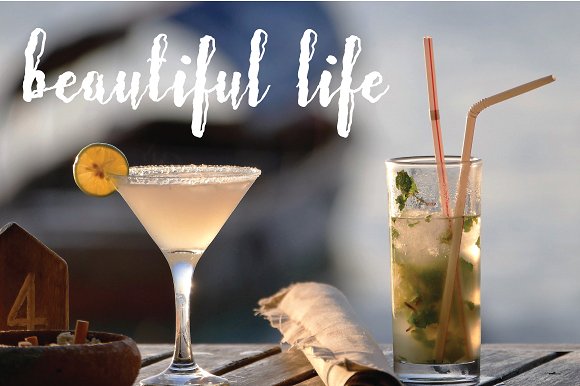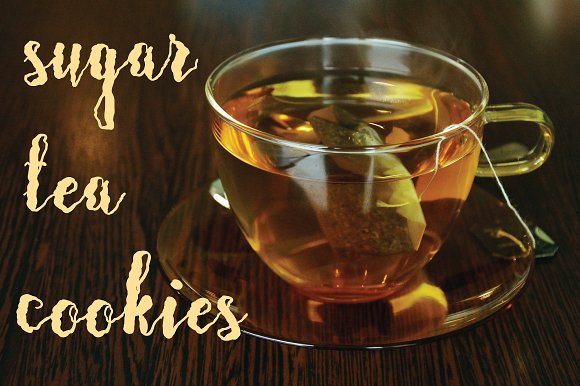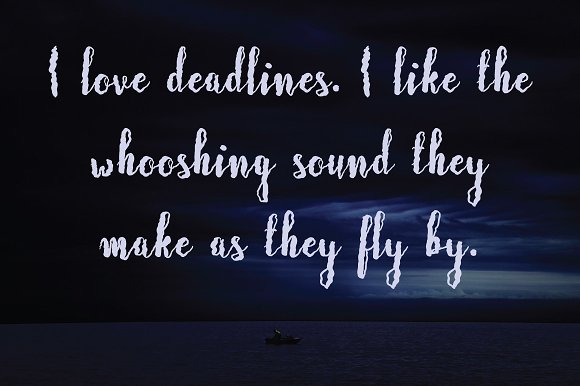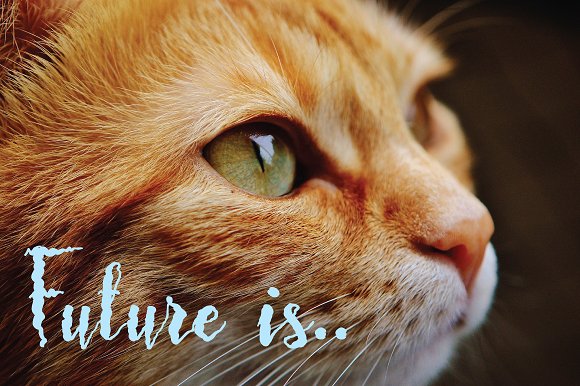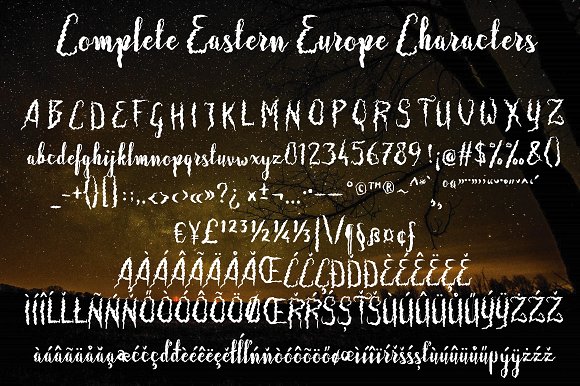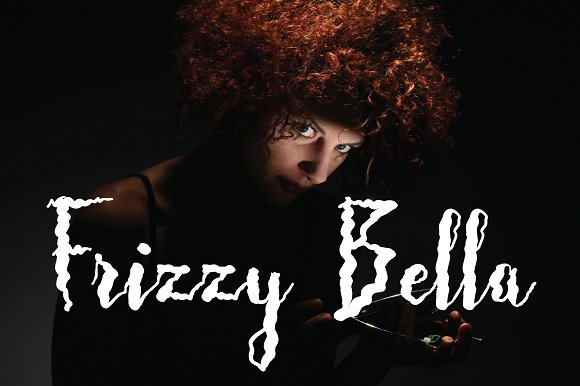
Frizzy Bella Font: The Quirky and Charming Typeface by Darwinoo
In the world of typography, fonts play a crucial role in conveying emotions and setting the tone for a brand or design. One such font that has gained popularity among designers and crafters is the Frizzy Bella font, created by the talented Darwinoo. In this article, we’ll dive into the world of Frizzy Bella, exploring its unique characteristics, uses, and what makes it a must-have for any design enthusiast.
The Story Behind Frizzy Bella Font
Frizzy Bella font was created by Darwinoo, a skilled font designer with a passion for crafting unique and visually appealing typefaces. With a keen eye for detail and a deep understanding of typography, Darwinoo brought Frizzy Bella to life, infusing it with a quirky and charming personality that’s hard to resist.
What Makes Frizzy Bella Font So Special?
Frizzy Bella font boasts a distinctive, hand-drawn aesthetic that’s perfect for designs that require a touch of whimsy and playfulness. Its irregular shapes, uneven baselines, and bouncy curves give it a lively, energetic feel that’s sure to capture attention. Whether you’re working on a branding project, crafting a social media graphic, or creating a handmade card, Frizzy Bella font is sure to add a dash of personality to your design.
Key Features of Frizzy Bella Font
• Hand-drawn aesthetic: Frizzy Bella font features a unique, hand-drawn look that’s perfect for designs that require a personal touch.
• Quirky and charming: The font’s irregular shapes and bouncy curves give it a lively, energetic feel that’s sure to delight.
• Highly legible: Despite its quirky nature, Frizzy Bella font remains highly legible, making it suitable for a wide range of design applications.
• Multilingual support: Frizzy Bella font supports multiple languages, making it a great choice for designers working on international projects.
Uses for Frizzy Bella Font
Frizzy Bella font is incredibly versatile, making it suitable for a wide range of design applications. Here are just a few ideas to get you started:
• Branding and logos: Frizzy Bella font is perfect for creating unique, eye-catching logos that stand out from the crowd.
• Social media graphics: Add a touch of personality to your social media graphics with Frizzy Bella font’s quirky, hand-drawn aesthetic.
• Handmade crafts: Frizzy Bella font is a great choice for crafters who want to add a personal touch to their handmade cards, scrapbook pages, and other projects.
• Web design: Use Frizzy Bella font to create visually appealing website headers, titles, and other design elements.
Tips for Using Frizzy Bella Font
To get the most out of Frizzy Bella font, here are a few tips to keep in mind:
• Experiment with sizes: Frizzy Bella font looks great in a variety of sizes, from large headlines to smaller body text.
• Pair with complementary fonts: Combine Frizzy Bella font with complementary fonts to create visually appealing contrast and hierarchy.
• Use it sparingly: While Frizzy Bella font is incredibly charming, it’s best used sparingly to avoid overwhelming the design.
Frizzy Bella font by Darwinoo is a unique and charming typeface that’s sure to delight designers and crafters alike. With its quirky, hand-drawn aesthetic and highly legible design, Frizzy Bella font is perfect for a wide range of design applications. Whether you’re working on a branding project, crafting a social media graphic, or creating a handmade card, Frizzy Bella font is sure to add a dash of personality to your design.